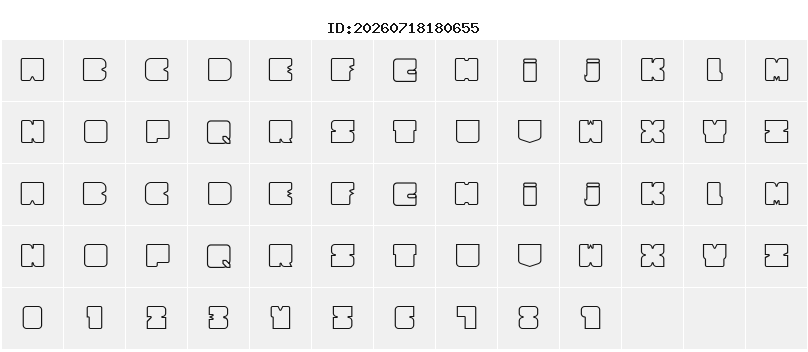
Cubesity Rounded Outline v2 Preview
• Font Name: Cubesity Rounded Outline v2
• Full Font Name: Cubesity Rounded Outline v2
• Designer: Pelayo Rodríguez
About Cubesity Rounded Outline v2.ttf
Cubesity Rounded Outline v2.ttf is a modern, elegant sans-serif font designed for ultimate readability and visual harmony. Perfect for branding, headlines, web design, and print materials.